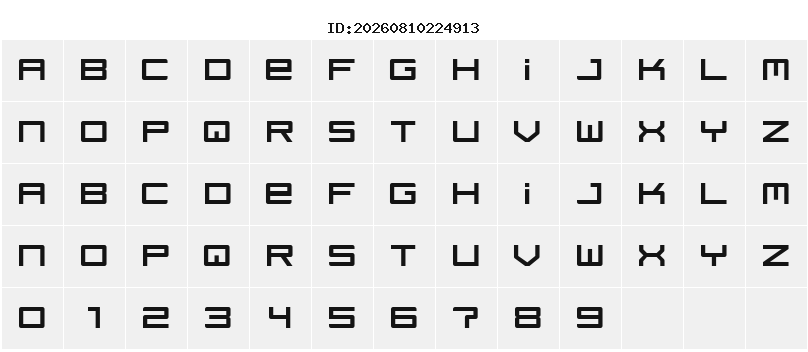
regata Preview
About regata.ttf
regata.ttf is a modern, elegant sans-serif font designed for ultimate readability and visual harmony. Perfect for branding, headlines, web design, and print materials.